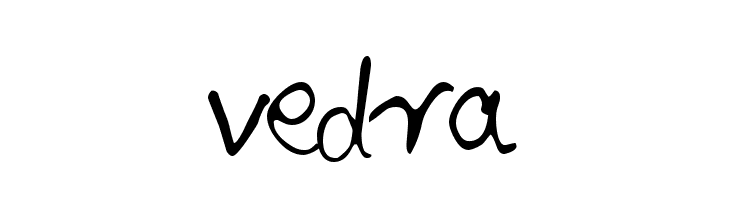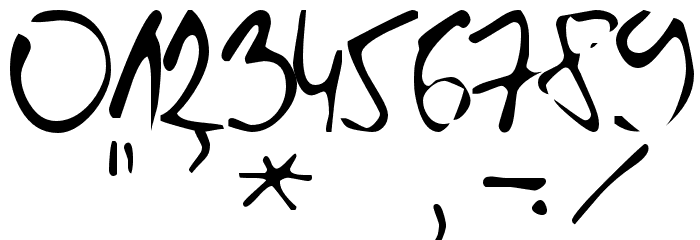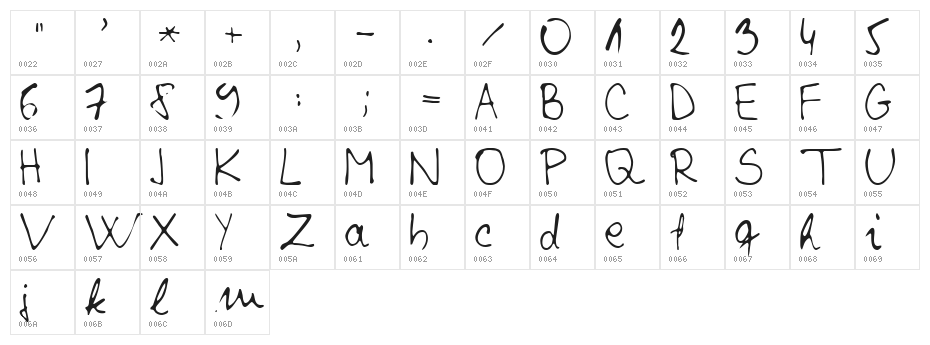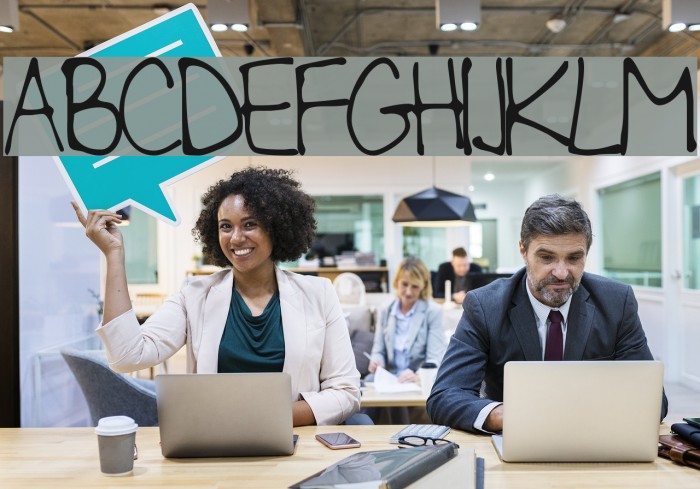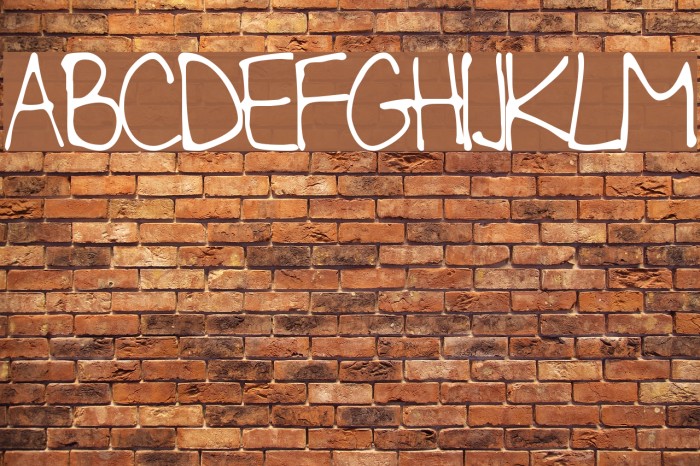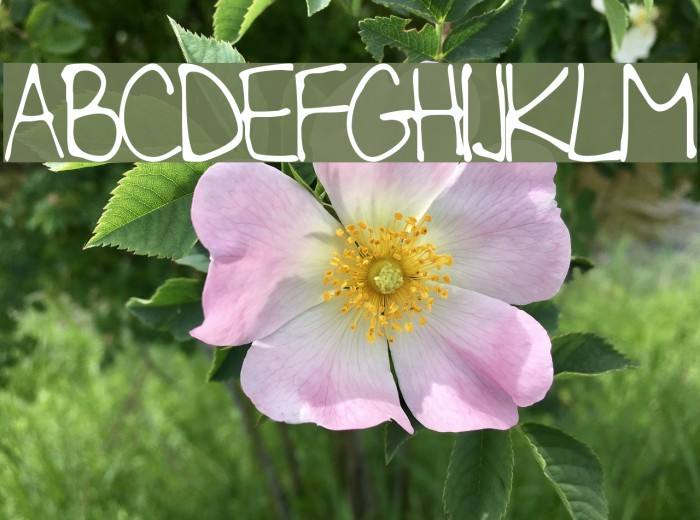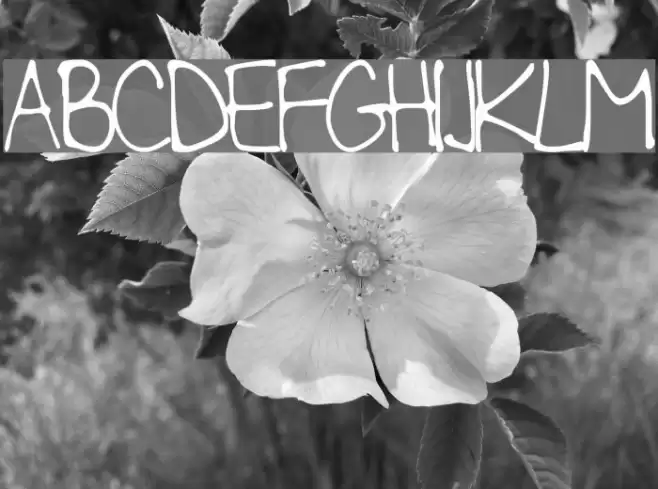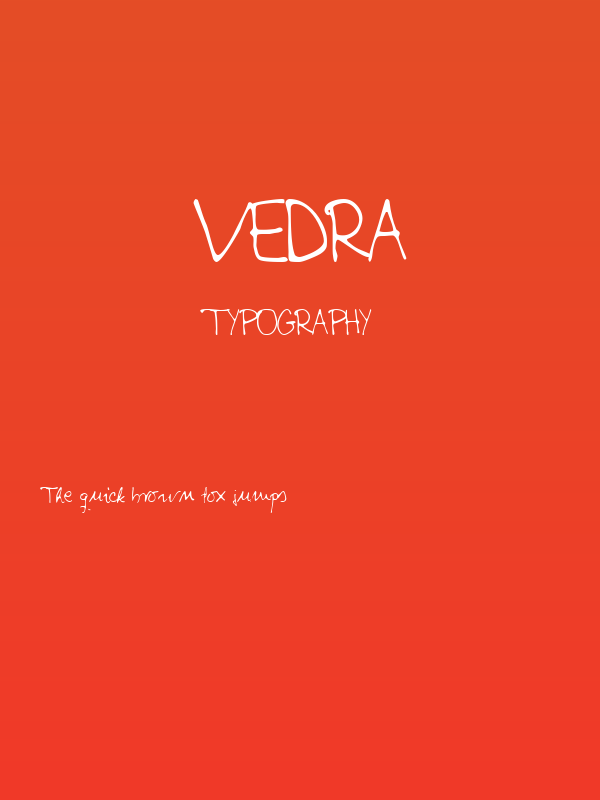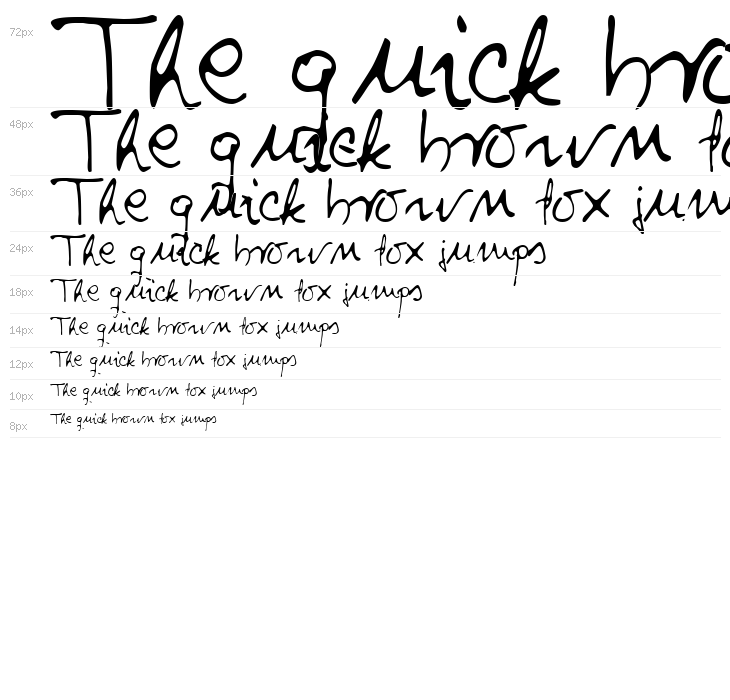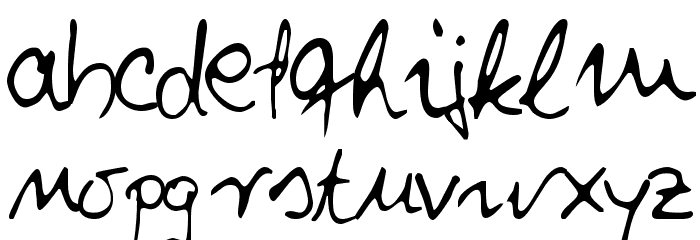
vedra Font
vedra Description
This font exhibits a playful and energetic handwritten style, characterized by its fluid and dynamic strokes. The uppercase letters are bold and slightly irregular, giving a sense of spontaneity and movement. The lowercase letters maintain a consistent flow, with some characters featuring unique loops and curves that add to the font's charm. The numbers are distinct and maintain the same lively style, while the special characters are creatively designed to match the overall aesthetic. This font's informal and artistic nature makes it suitable for projects that require a personal touch.